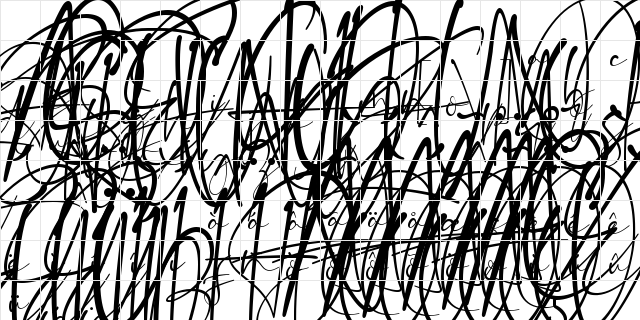
The Brittany Script Regular
Design Context for The Brittany Script Typeface
The Brittany Script brings a calligraphic fluidity to the page — its connecting strokes and expressive curves give it an unmistakably human quality.
Font Pairing: Combine The Brittany Script with a simple geometric sans for maximum contrast — the tension between flowing curves and clean structure is a classic typographic pairing.
Pro Tip: Pair The Brittany Script with a clean sans-serif for supporting text. The contrast between fluid script and geometric structure creates an elegant typographic hierarchy.